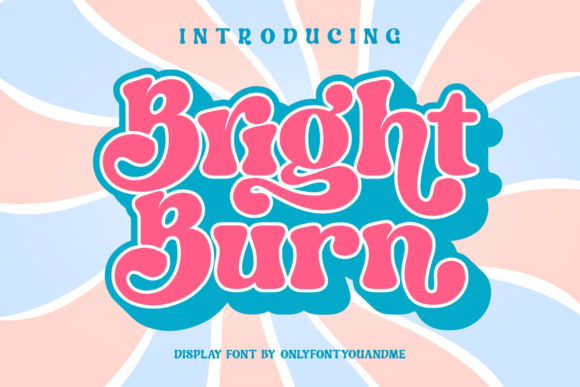
Bright Burn Font: The Ultimate Retro Display Font for Your Creative Projects
Are you looking for a font that can add a touch of retro coolness to your designs? Look no further than Bright Burn Font! This fun and stylish display font is perfect for creating eye-catching headlines, magazines, logos, branding, and more. In this article, we’ll dive into the features and benefits of Bright Burn Font, and explore how you can use it to take your creative projects to the next level.
What is Bright Burn Font?
Bright Burn Font is a modern display font that combines a retro aesthetic with a fresh and fun vibe. Its unique design features bold lines, curvaceous shapes, and a dash of playfulness, making it perfect for designs that require a bit of personality. Whether you’re creating a logo, headline, or social media graphic, Bright Burn Font is sure to turn heads.
Key Features of Bright Burn Font
- Retro Coolness: Bright Burn Font has a distinctly retro vibe that’s perfect for designs that require a bit of nostalgia.
- Fun and Playful: This font is designed to be fun and playful, making it perfect for designs that require a bit of personality.
- Highly Versatile: Bright Burn Font can be used for a wide range of designs, from headlines and magazines to logos and branding.
Benefits of Using Bright Burn Font
So why should you choose Bright Burn Font for your next design project? Here are just a few benefits of using this amazing font:
- Adds Personality to Your Designs: Bright Burn Font is a unique and eye-catching font that can add a touch of personality to your designs.
- Perfect for Retro-Inspired Designs: If you’re creating a design that requires a retro aesthetic, Bright Burn Font is the perfect choice.
- High-Quality Design: Bright Burn Font is designed to high standards, ensuring that your designs look professional and polished.
How to Use Bright Burn Font
Using Bright Burn Font is simple! Here are a few tips to get you started:
- Headlines and Titles: Use Bright Burn Font to create eye-catching headlines and titles that grab attention.
- Logos and Branding: Bright Burn Font is perfect for creating unique and memorable logos and branding.
- Magazines and Editorial Design: Use Bright Burn Font to add a touch of personality to your magazine and editorial designs.
- Social Media Graphics: Bright Burn Font is perfect for creating fun and engaging social media graphics.
Tips and Tricks for Getting the Most Out of Bright Burn Font
Here are a few tips and tricks to help you get the most out of Bright Burn Font:
- Experiment with Different Colors: Bright Burn Font looks great in a wide range of colors, so don’t be afraid to experiment and find the perfect hue for your design.
- Use it with Other Fonts: Bright Burn Font pairs well with a wide range of other fonts, so try combining it with other fonts to create a unique look.
- Play with Glyphs and Alternates: Bright Burn Font has a range of glyphs and alternates that you can use to customize your text and create unique designs.
- What is Bright Burn Font? Bright Burn Font is a modern display font that combines a retro aesthetic with a fresh and fun vibe.
- What can I use Bright Burn Font for? Bright Burn Font is highly versatile and can be used for a wide range of designs, from headlines and magazines to logos and branding.